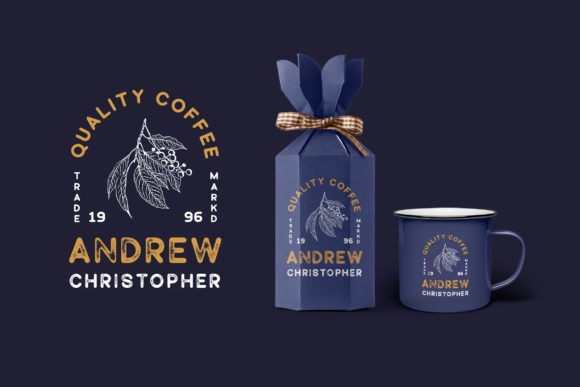
Punizione Display Font is a fresh bold vintage font available in two styles; clean & stamp. Get inspired by its contemporary coolness!
Designer Name: | Grezline Studio |
Punizione
Punizione Stamp